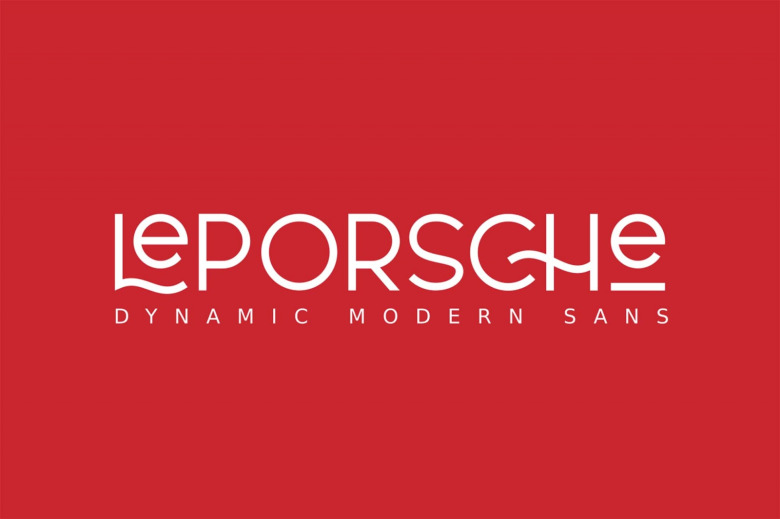
Le Porsche Sans Font
Le Porsche Font is a modern display sans font with a bold look and powerful. It’s designed and shared by Aluyeah Studio. It’s a dynamic and modern sans serif font with a cool look. Constructed from solid and sharp lines who coexist with circular elements in order to create and harmonious contrast and a characteristic stylish look and feel.
Le Porsche Sans Serif Font